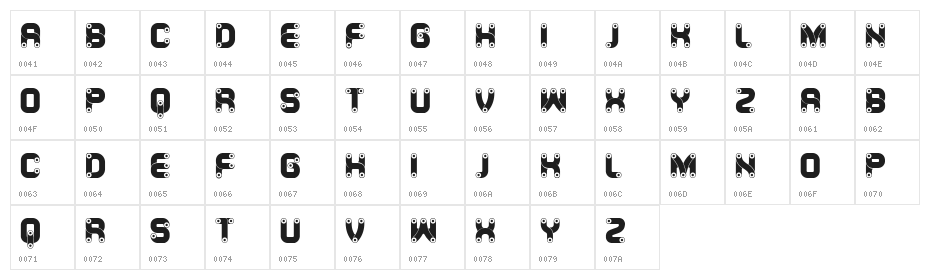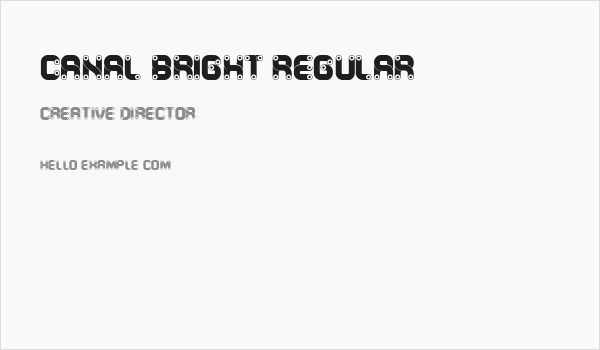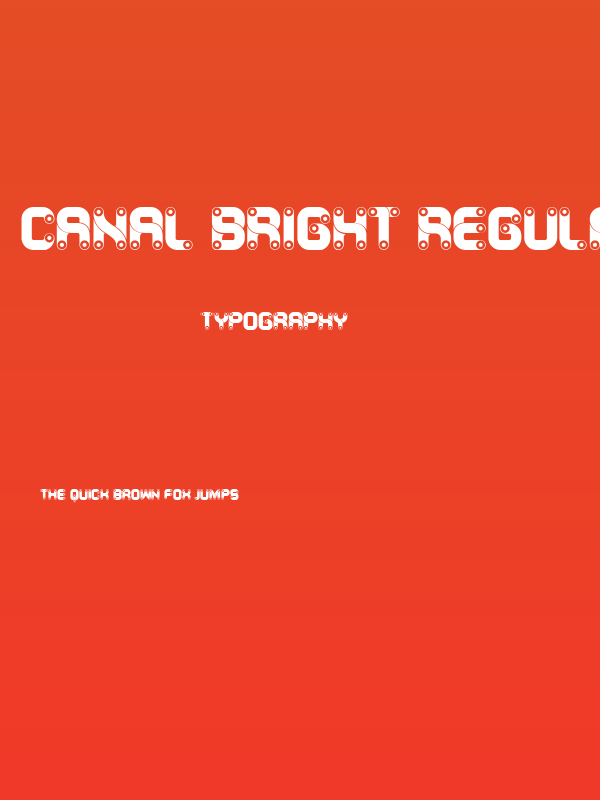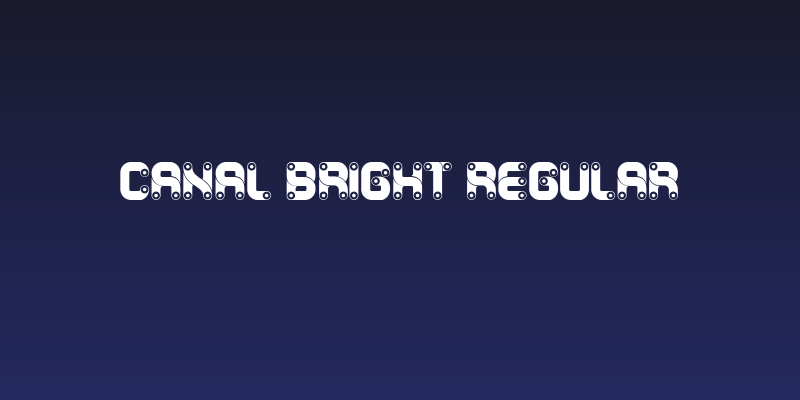
Canal Bright Regular Font
Canal Bright Regular Description
This font features a bold and playful design with a unique, eye-catching style. Each character is crafted with a series of circular holes, giving it a mechanical and industrial feel. The letters are uniformly thick, creating a strong visual impact. The rounded edges and consistent stroke width contribute to its modern and innovative appearance. This font is ideal for projects that require a distinctive and memorable look, such as branding, posters, or creative digital content.
| Proposed Projects | Ideal for branding, posters, creative digital content, and any project needing a distinctive look. |